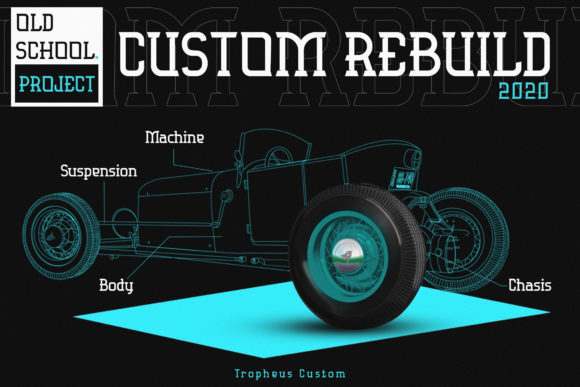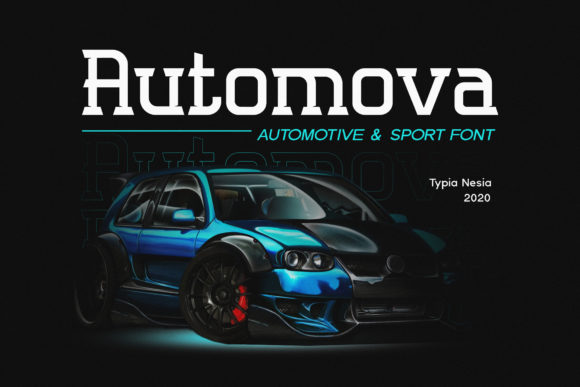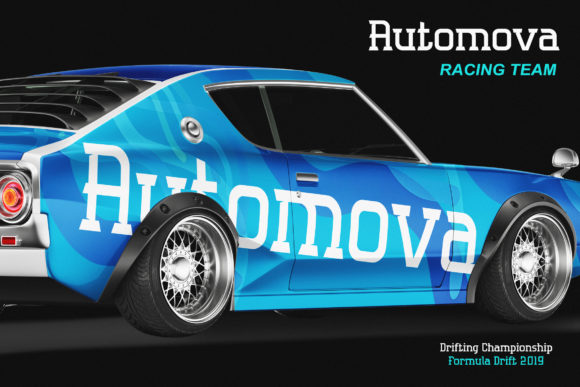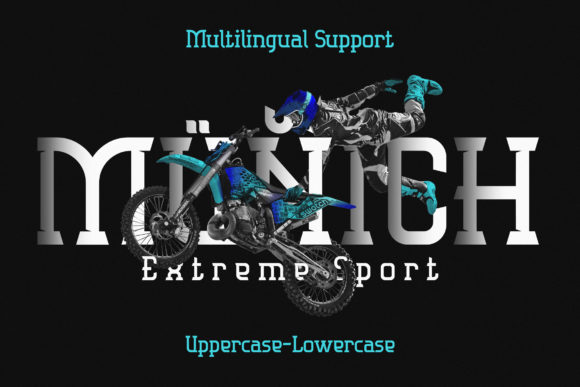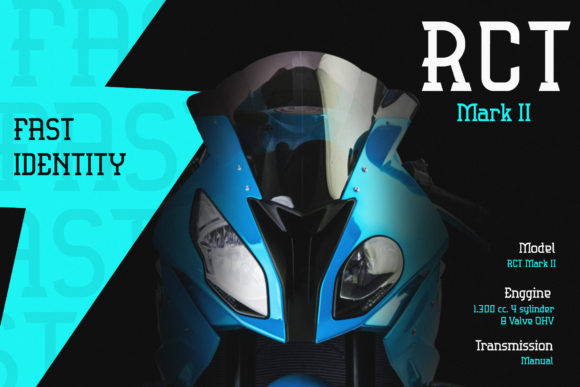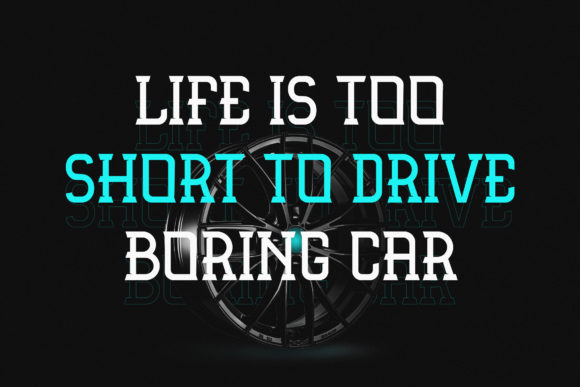
Unleash Your Creativity with Automova Font
Have you ever stared at a blank canvas, notebook, or screen, waiting for the perfect spark to ignite your next creative project? We’ve all been there. Sometimes, all it takes is the right font to bring your ideas to life. Meet Automova Font, a charming and laid-back display font that’s perfect for adding a touch of whimsy to your designs.
Whether you’re a seasoned designer or a DIY enthusiast, Automova Font is the perfect companion for your next project. Its friendly feel and playful vibe make it an instant hit for social media graphics, calligraphy scripts, and more. With Automova Font, you’ll be able to turn your creative ideas into stunning pieces of art that showcase your unique style.
Automova Font Key Features
- Font Family: Automova comes in a range of 6 font families, each with its unique style and character.
- Size: The font family includes a wide range of weights from Thin (100) to Extra Bold (800) to cater to various design needs.
- Unique Characteristics: Automova features a unique blend of modern and futuristic elements, making it perfect for futuristic and high-tech designs.
Automova Font Review
First off, let me say that I’m really impressed with the modern and sleek feel of the Automova font. ✨ The bold lines and futuristic aesthetic make it perfect for tech-related projects, futuristic concepts, or anything that needs a touch of cutting-edge style. The font’s versatility allows it to work well in a variety of contexts, from headings to body text.
Another strength of the Automova font is its legibility. ✨ The clear and concise design ensures that the text is easy to read, even at smaller font sizes. This makes it an excellent choice for digital applications, presentations, or any project where readability is crucial.
What Doesn’t Quite Work
While the Automova font excels in many areas, there are a few limitations worth mentioning. ⚠️ The font’s condensed style can make it difficult to read at very small sizes, and the bold weight may be too overpowering for certain designs.
- Lack of italic and bold-italic variants may limit its usability in certain contexts
- May not be suitable for projects requiring a more traditional or classic look
Overall, I think the Automova font is a great addition to any designer’s toolkit. Its modern style and excellent legibility make it perfect for a wide range of projects. While it may not be the best choice for every situation, it’s definitely worth considering for any design that needs a touch of futuristic flair.
Here are some common use cases for Automova Font:
- Branding materials
- Advertising
- Graphic design